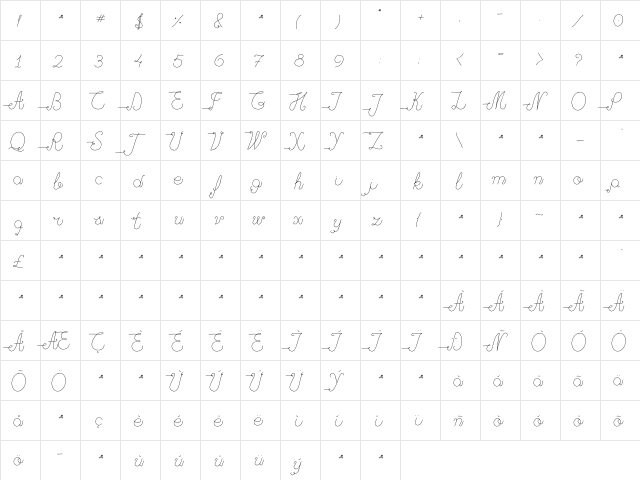
Mjellma Script
Design Context for Mjellma Typeface
Mjellma brings a calligraphic fluidity to the page — its connecting strokes and expressive curves give it an unmistakably human quality.
Font Pairing: Combine Mjellma with a simple geometric sans for maximum contrast — the tension between flowing curves and clean structure is a classic typographic pairing.
Pro Tip: Pair Mjellma with a clean sans-serif for supporting text. The contrast between fluid script and geometric structure creates an elegant typographic hierarchy.